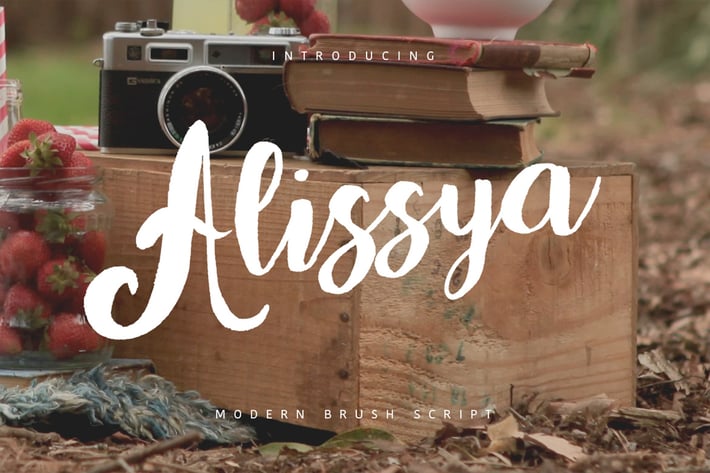
Alissya Typeface
Give your designs an authentic brush handcrafted feel. “Alissya Script” is perfectly suited to stationery, logo, typography quotes, magazine or book cover, website header, clothing, branding, packaging design and more.